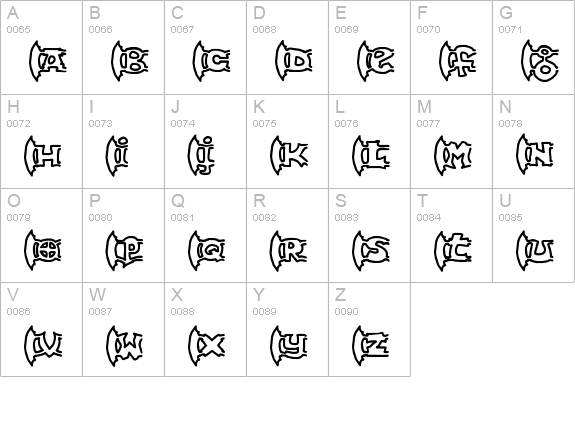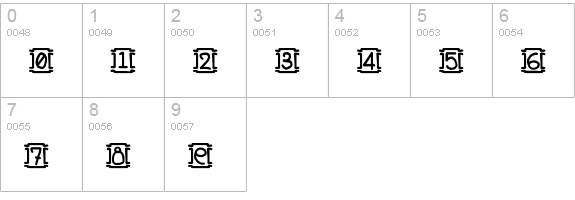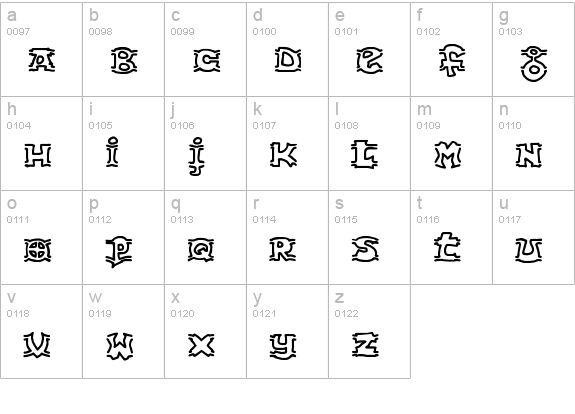
{ogrejuice} Font Details
Introducing the captivating {ogrejuice} font, a whimsical and playful typeface that is sure to bring a touch of fun to your designs. With its bold and quirky letterforms, {ogrejuice} exudes a sense of charm and uniqueness that is perfect for a variety of projects. What sets {ogrejuice} font apart is not only its eye-catching aesthetics but also the fact that it is completely free to download. That's right, you can add this delightful font to your collection at no cost at FontsMarket.com. Whether you're working on branding, invitations, posters, or any other creative endeavor, {ogrejuice} font is sure to make a statement and leave a lasting impression. Don't miss out on this fantastic font – download {ogrejuice} today and let your creativity shine!